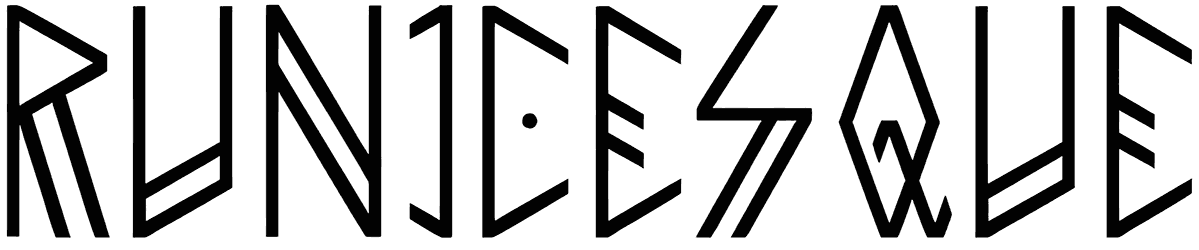
Runicesque Font
There’s a reason that some of the oldest writing styles have survived so long, and this ancient font is only here because of that. With the aged artistic touch of Runicesque, you can enrich any design of yours. Every letter in this tribal font does its best to resemble the true shape of the letters, but you may need a little help to recognize them. This creative approach is why Runicesque belongs to your apparel, games, and even poster designs.
Font is based upon old Rune writings from the ancient world, from all over northern Europe.